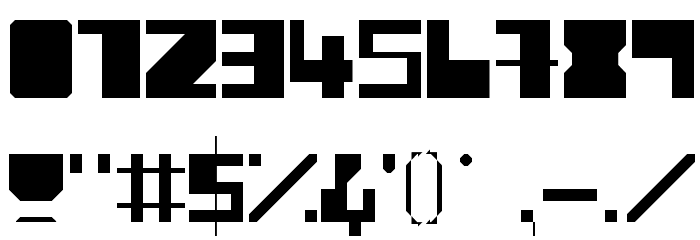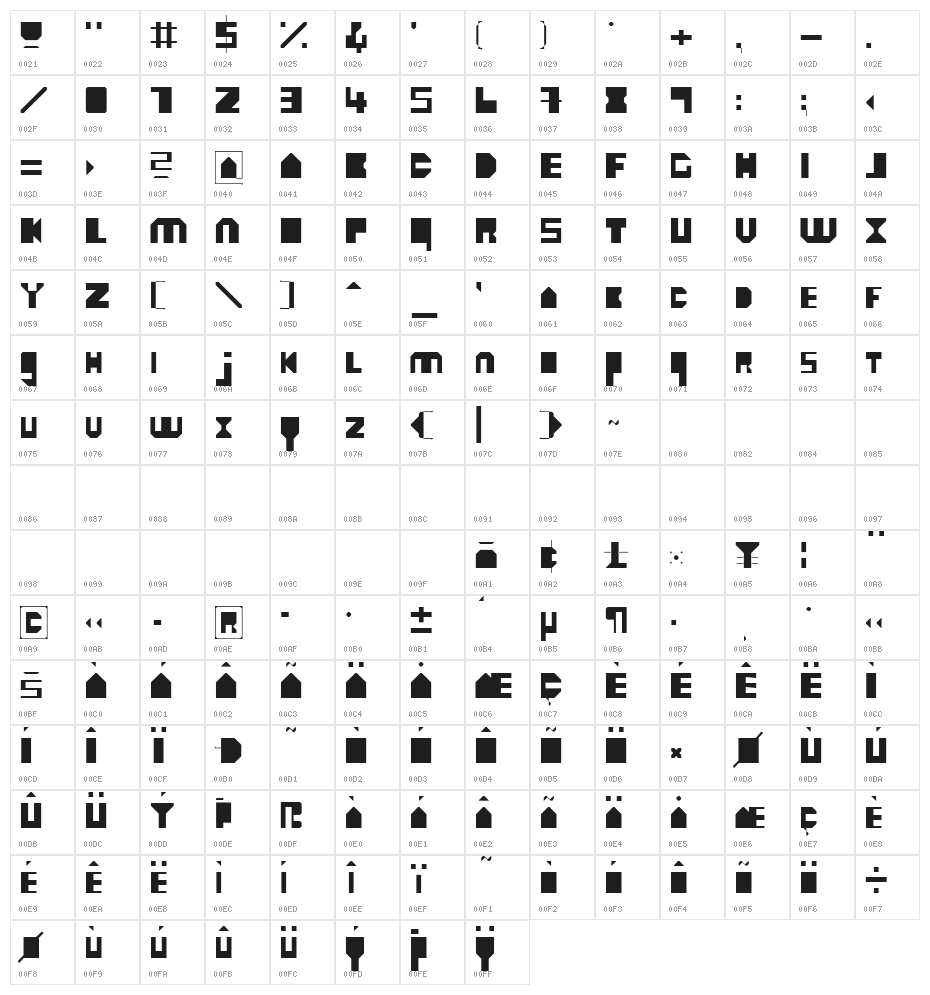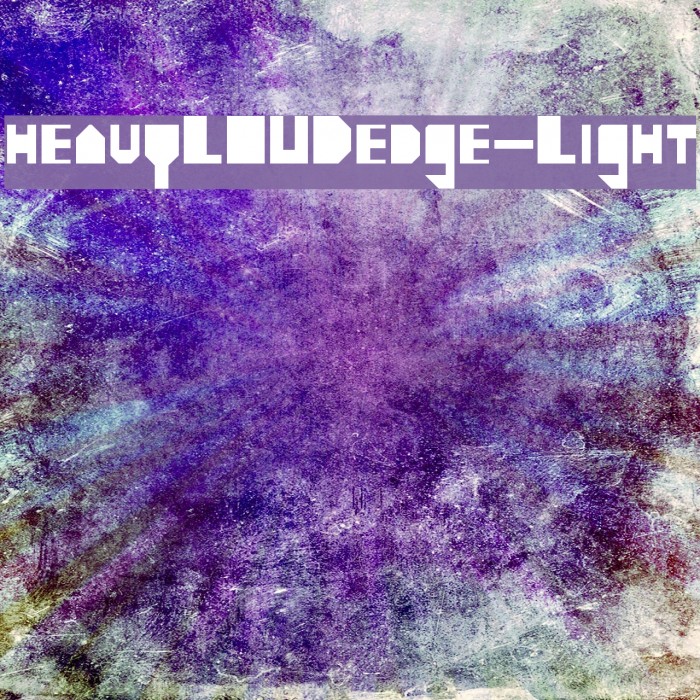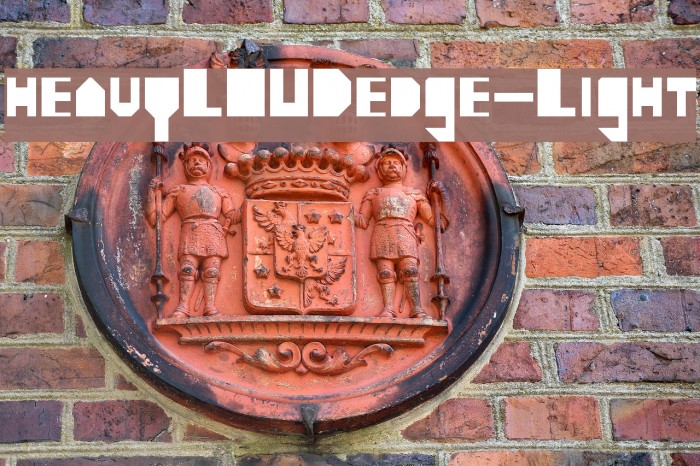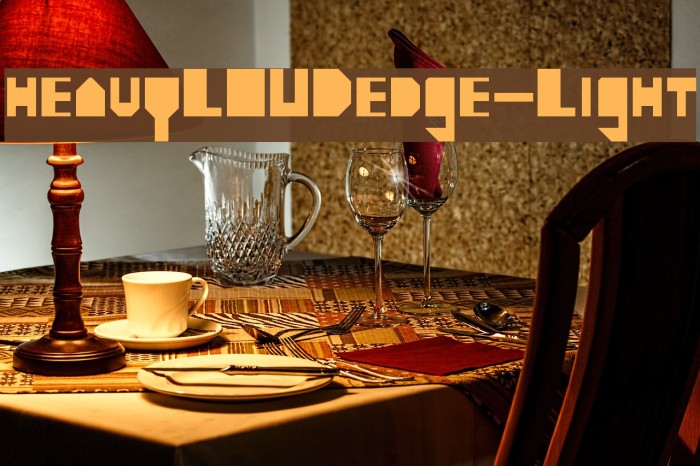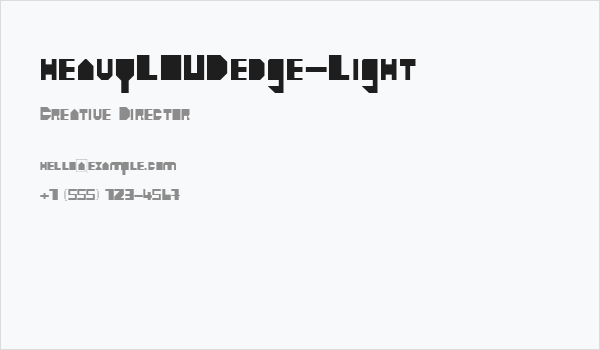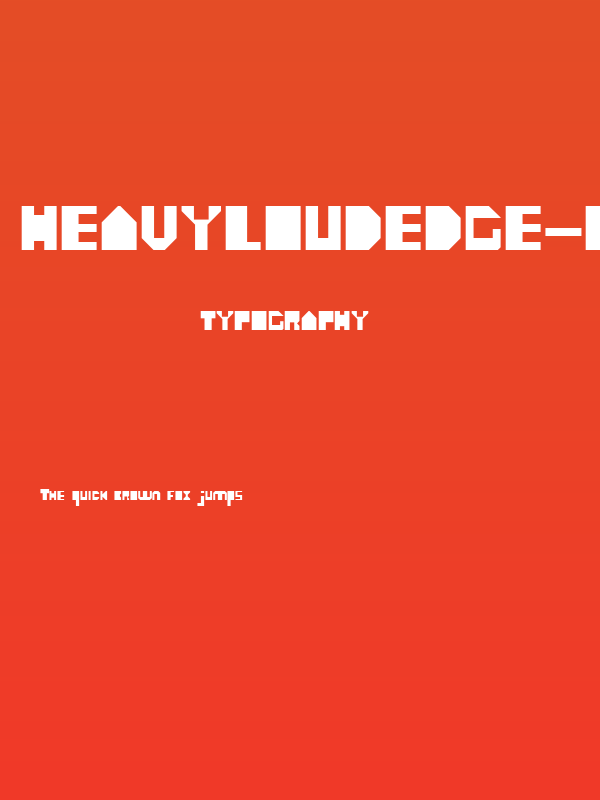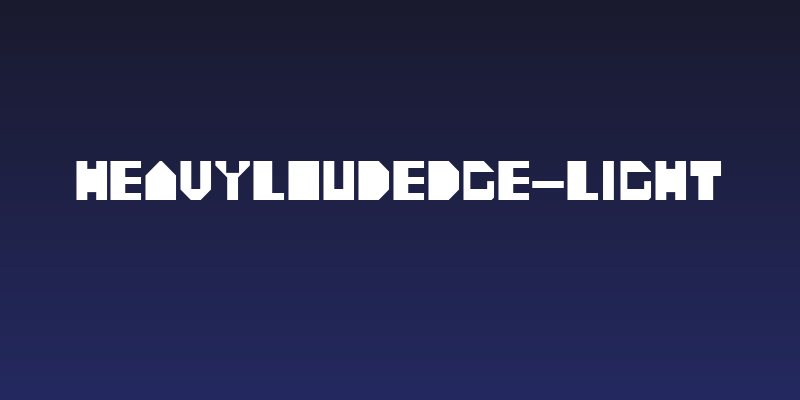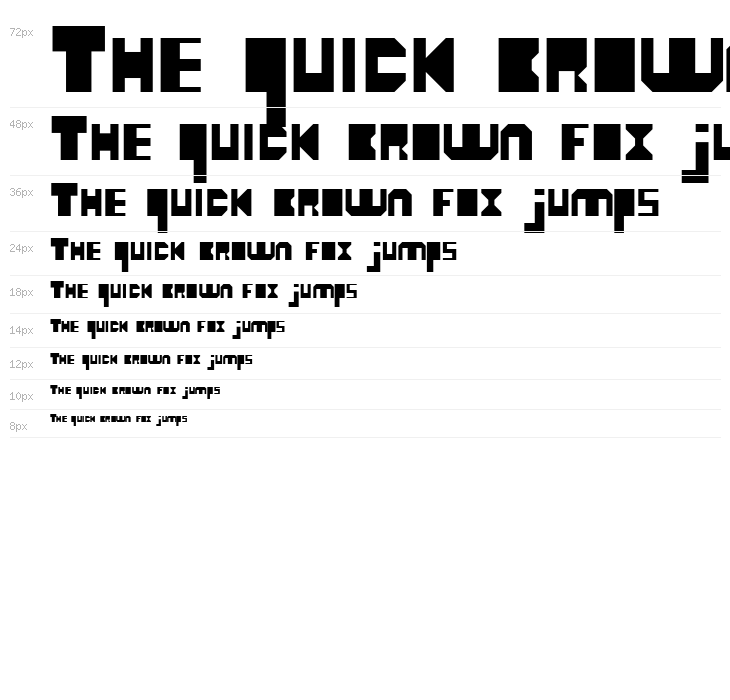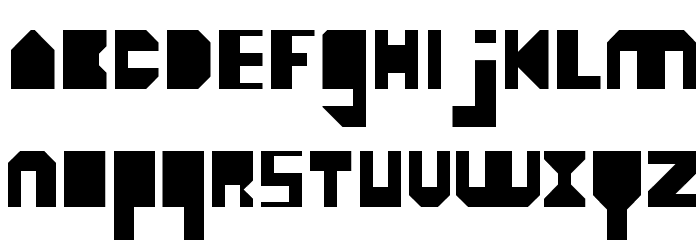
heavyLOUDedge-Light Font
heavyLOUDedge-Light Description
This font features a bold and geometric design, characterized by its sharp angles and block-like structure. The uppercase letters are particularly striking, with a uniform height and width that create a cohesive and impactful appearance. The lowercase letters maintain the same geometric style, offering a consistent look across both cases. Numbers and special characters are designed with the same boldness, ensuring they stand out in any composition. The font's unique style makes it ideal for projects that require a modern and edgy aesthetic.
| Proposed Projects | Ideal for branding, posters, album covers, and any project that requires a strong visual impact. |